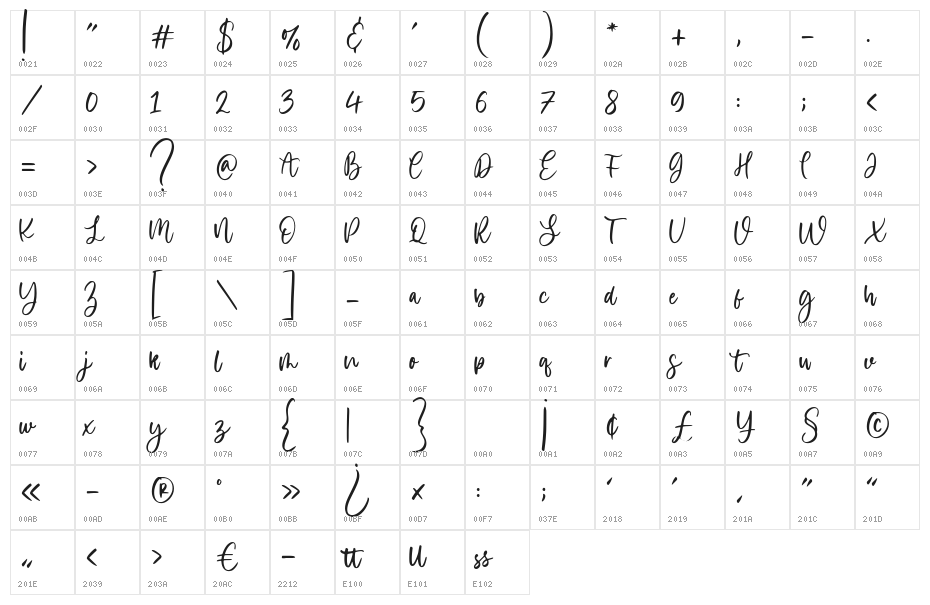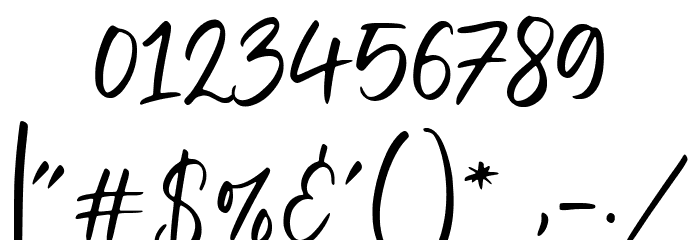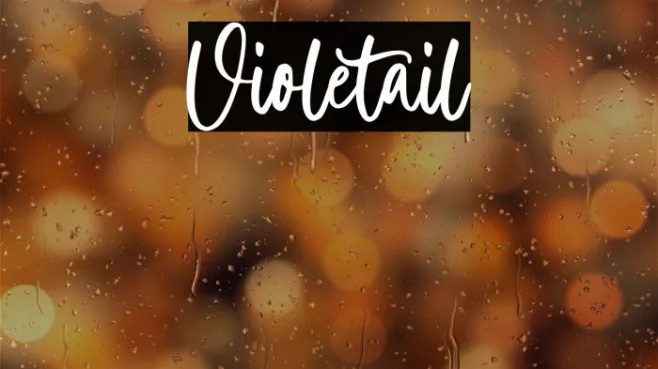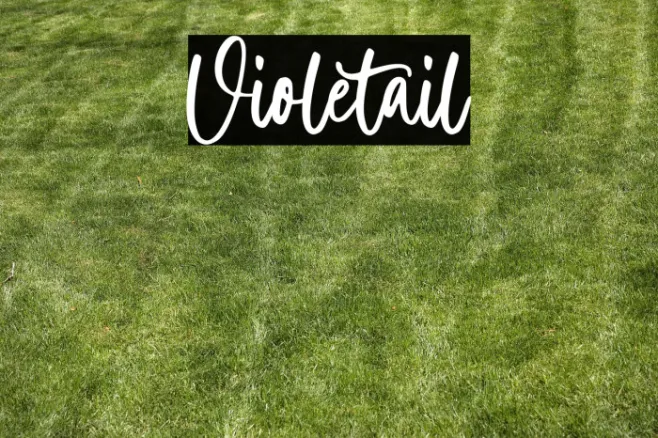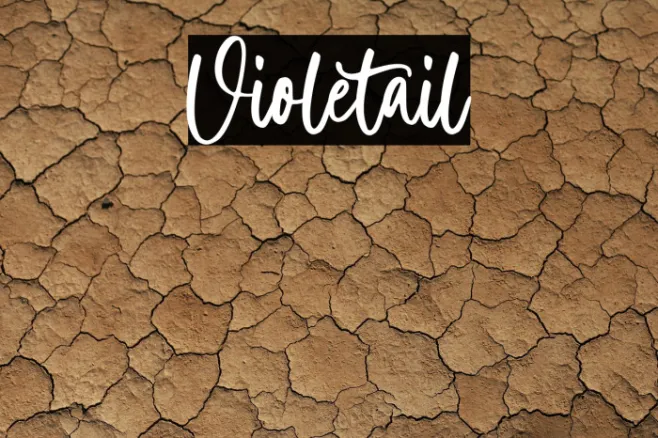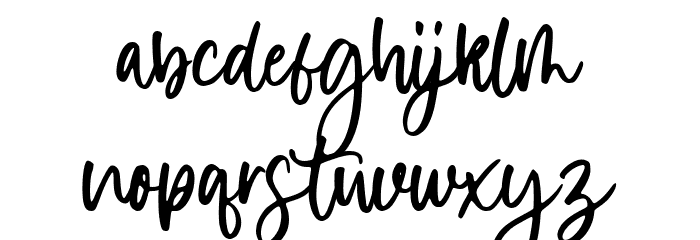
Violetail Font
Violetail Description
This font features a lively and flowing script style, characterized by its elegant and cursive letterforms. The uppercase letters are bold and expressive, with sweeping curves and loops that give a sense of movement and grace. The lowercase letters maintain a consistent flow, with smooth connections between each character, enhancing the handwritten feel. Numbers are clear and legible, while special characters retain the same fluidity, making them blend seamlessly with the rest of the font. The overall design exudes a sense of sophistication and creativity, perfect for projects that require a personal touch.